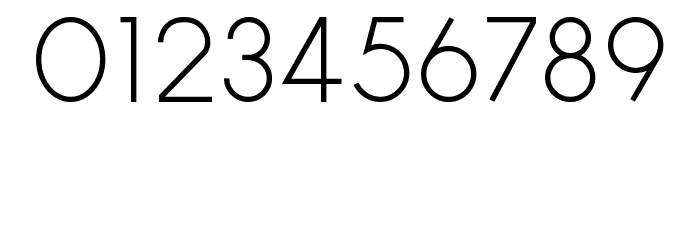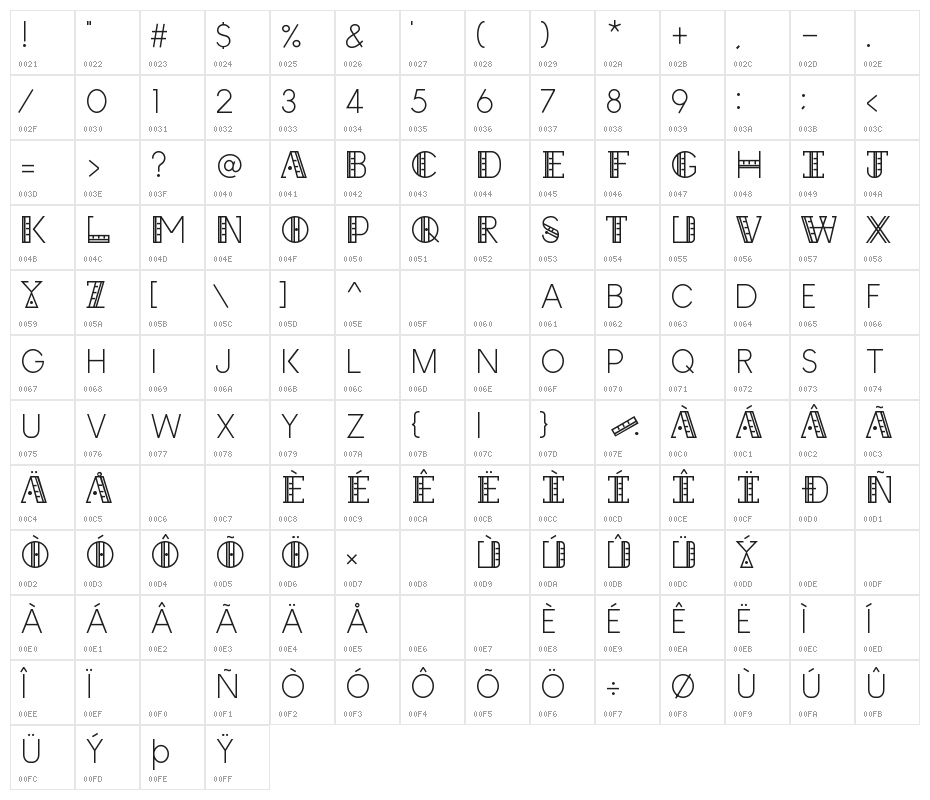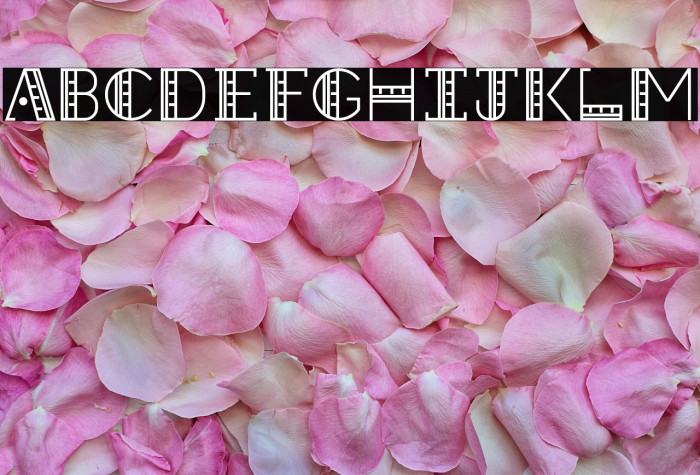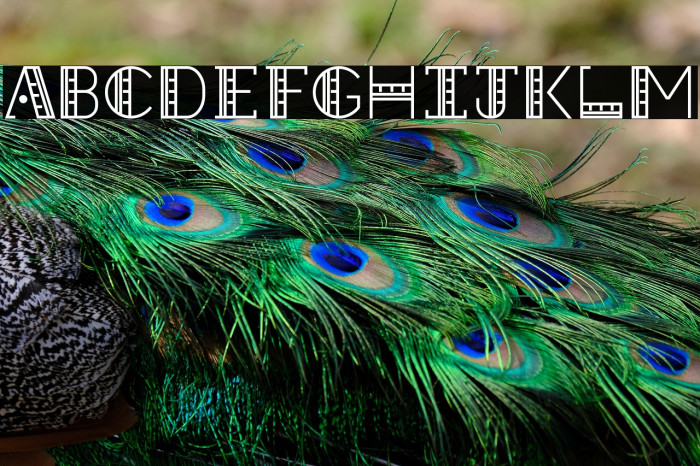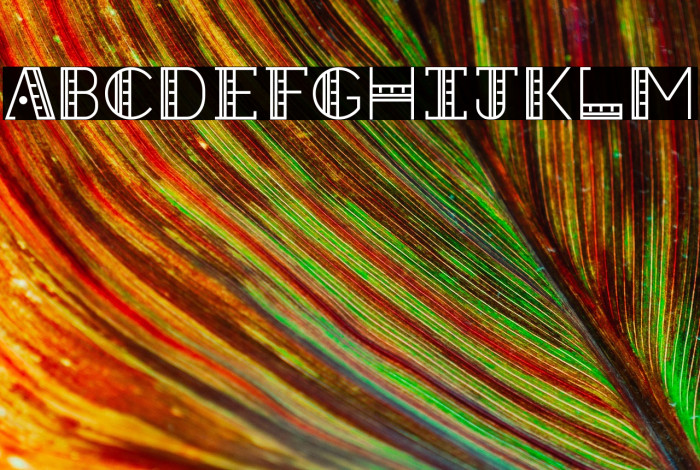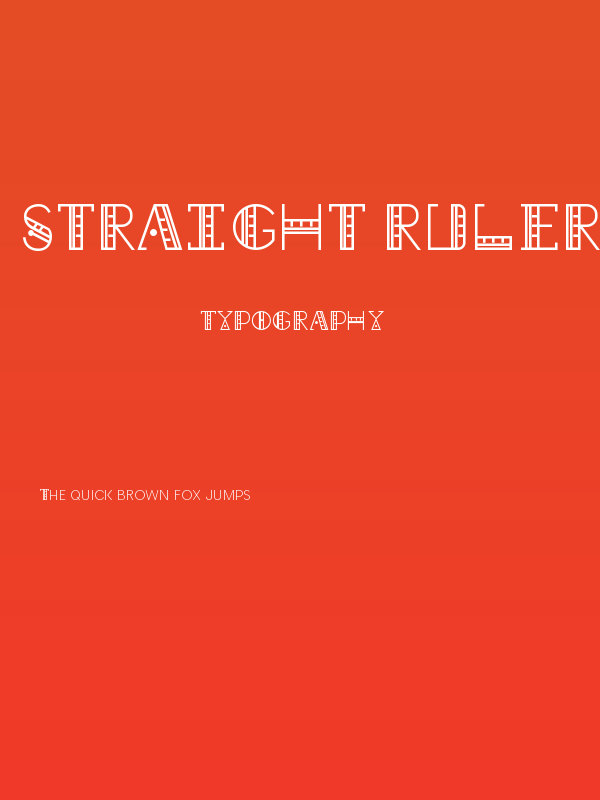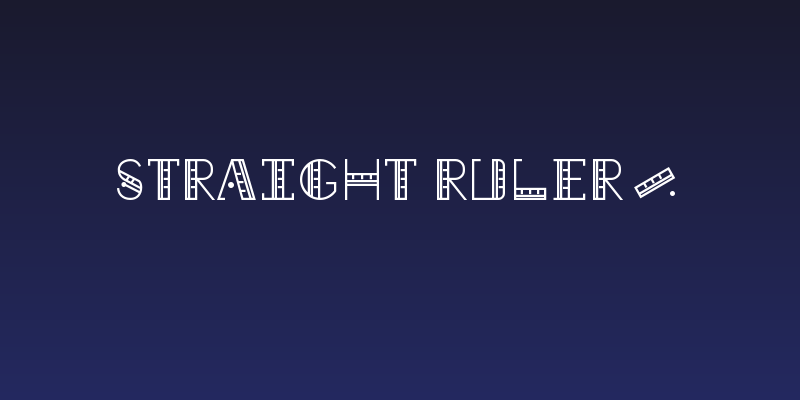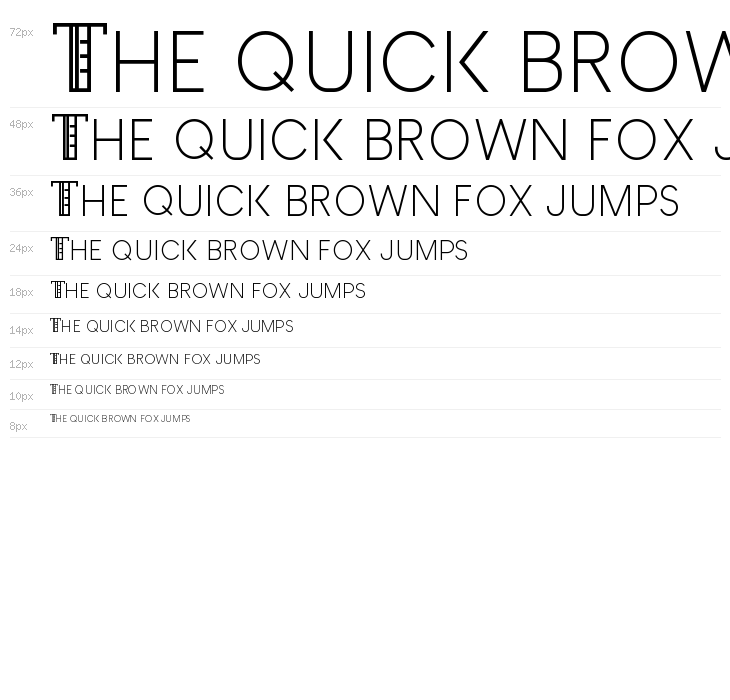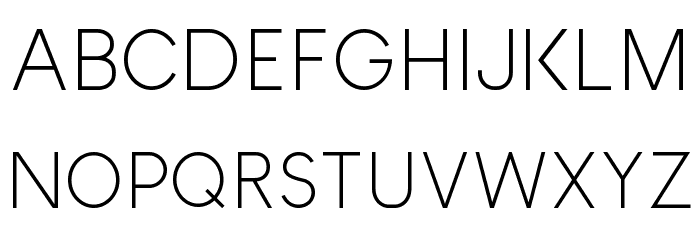
Straight Ruler~ Font
Straight Ruler~ Description
This font presents a unique combination of styles, featuring an upper row of decorative, geometric letters with a ruler-like pattern, followed by a clean, modern sans-serif typeface. The decorative letters have a playful and artistic appearance, characterized by lines and dots that mimic measurement markings. The second set of letters and numbers is sleek and minimalistic, offering a stark contrast to the decorative style above. This duality makes the font versatile, suitable for both creative and professional applications. The geometric elements in the decorative letters add a sense of structure and precision, while the sans-serif characters provide clarity and readability.
Overall StyleModern, Decorative
Proposed ProjectsIdeal for creative projects like posters, branding, and packaging that require a mix of artistic flair and modern simplicity.